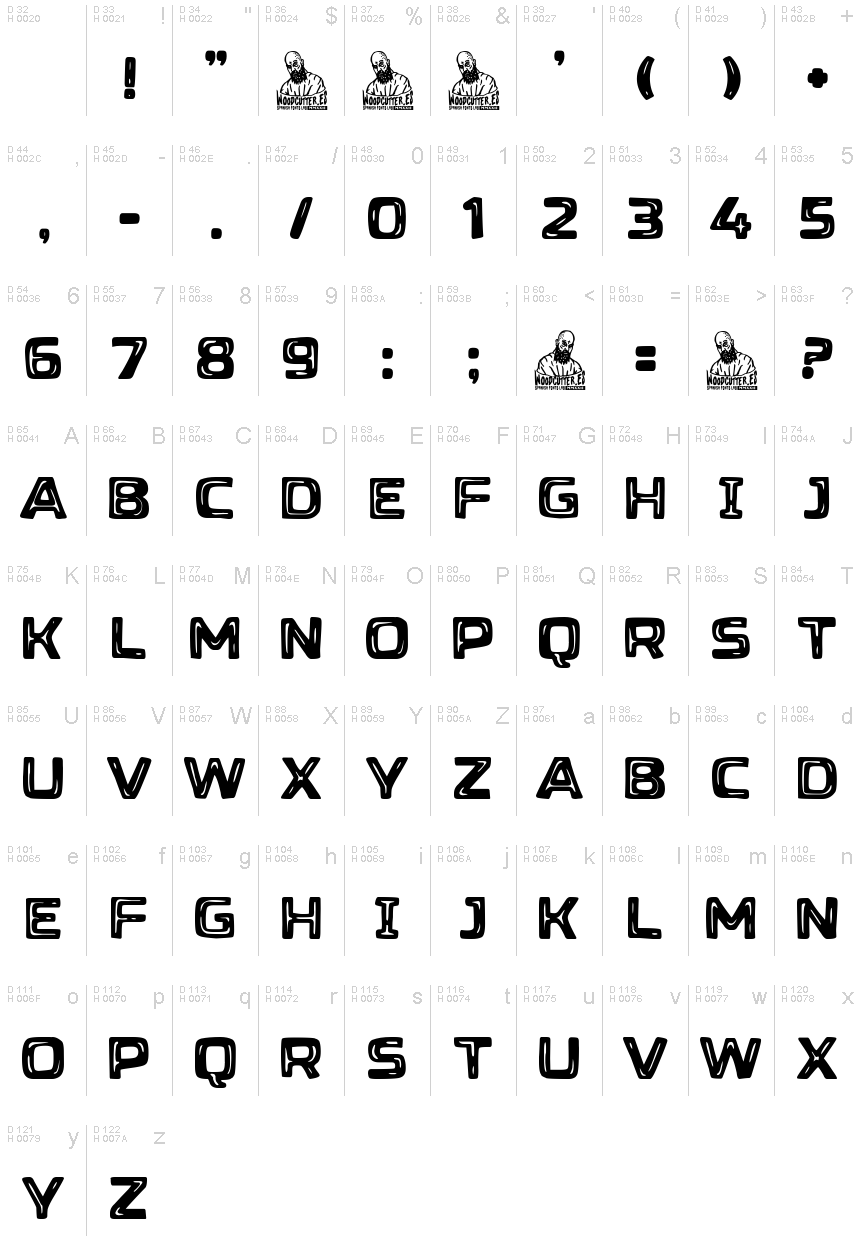
Pocket Days
Pocket Days font, designed by Woodcutter, is a striking display typeface that commands attention with its bold and playful aesthetic. The expanded form of the letters lends an air of spaciousness, allowing for effective legibility while maintaining a lively character. Each letter exudes a sense of personality, embodying both modern flair and a hint of nostalgia.
Visually appealing with its dynamic curves and quirky shapes, Pocket Days stands out in various design contexts. Ideal for eye-catching headlines, promotional materials, or any project requiring a touch of whimsy, this font brings creativity to the forefront. Its unique style ensures it leaves a memorable impression in branding, packaging, and digital platforms alike. Embrace Pocket Days to inject vibrancy and personality into your designs!